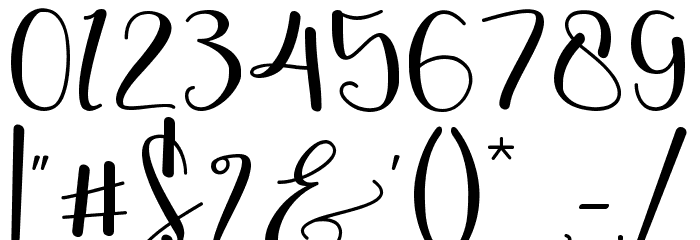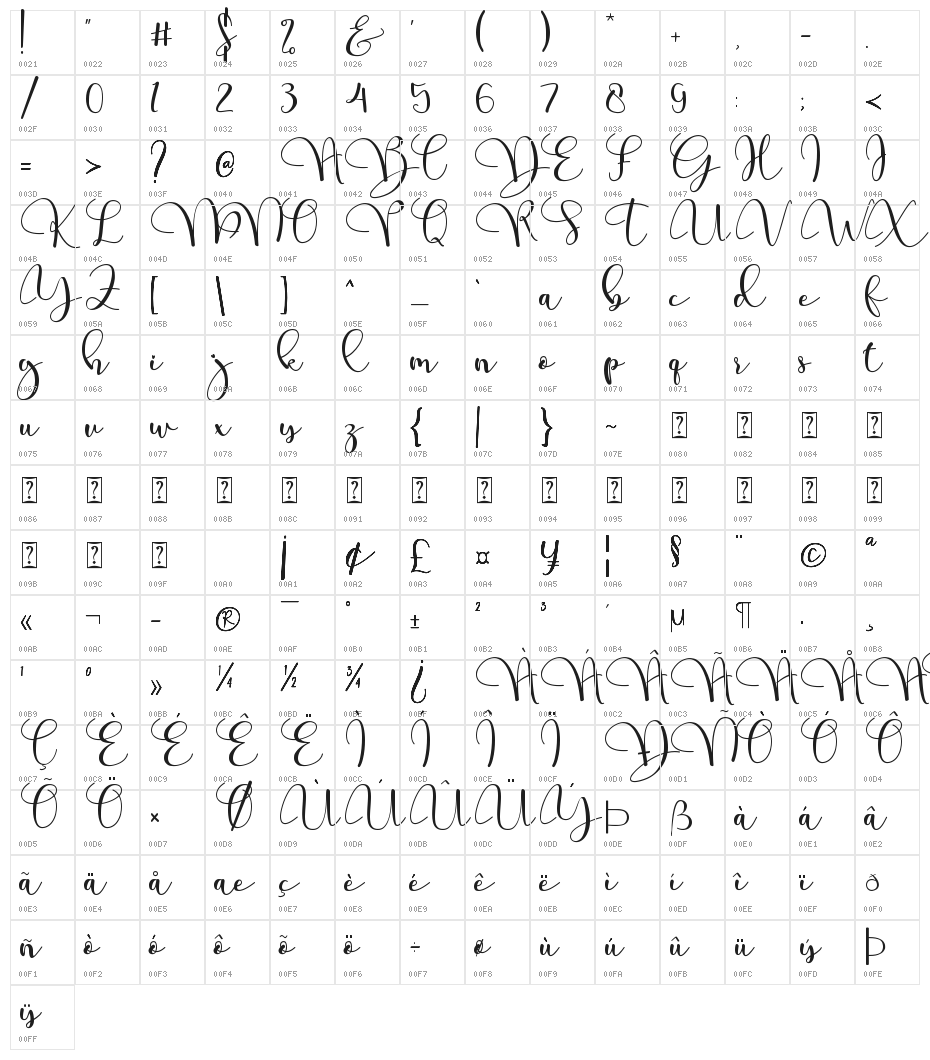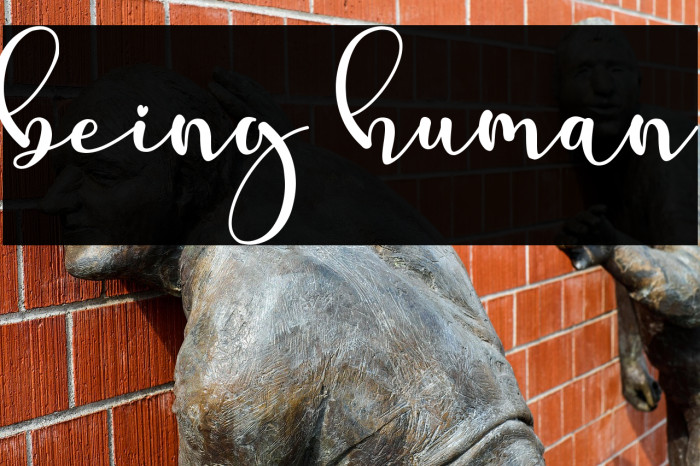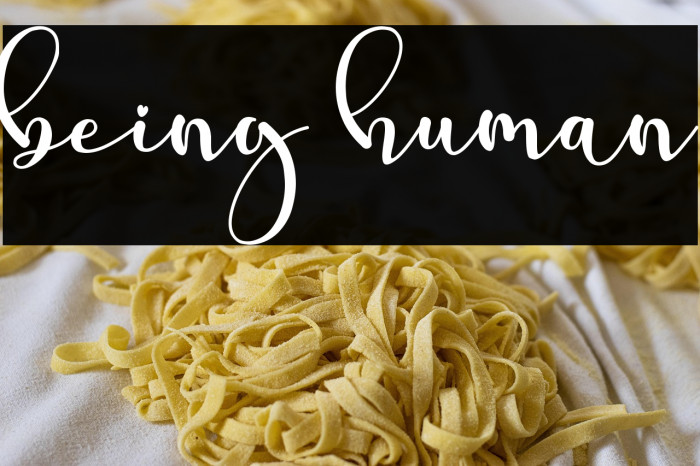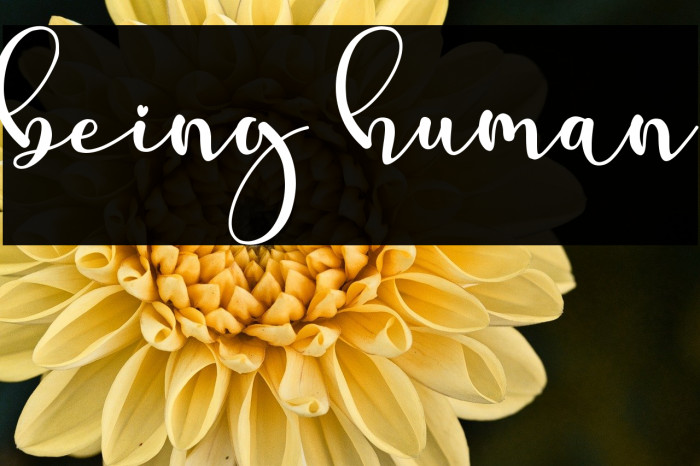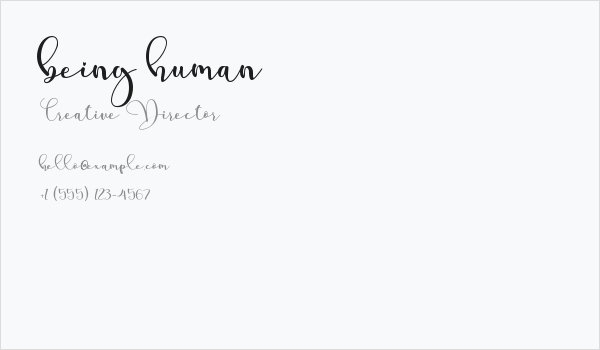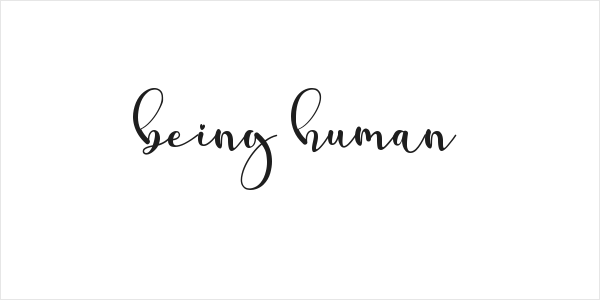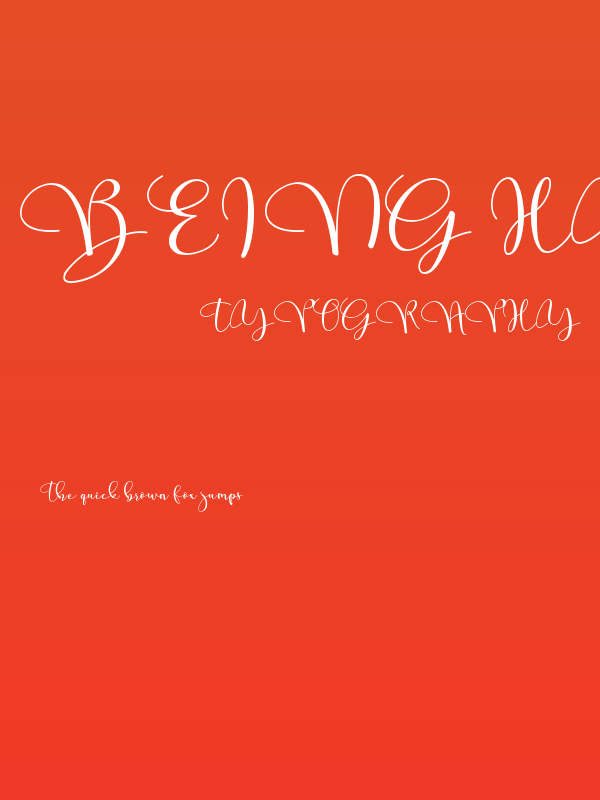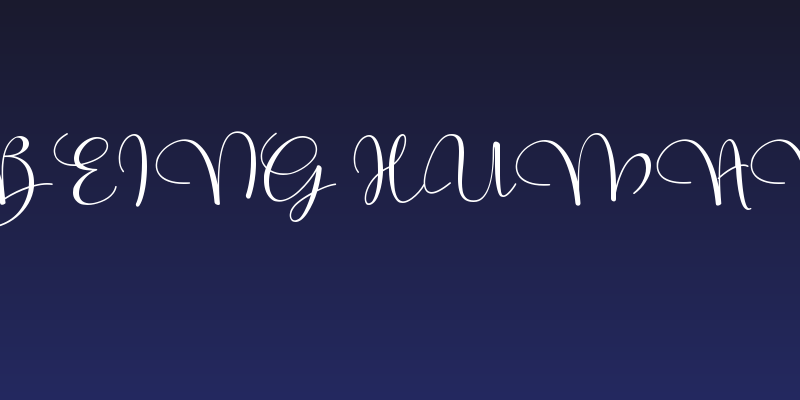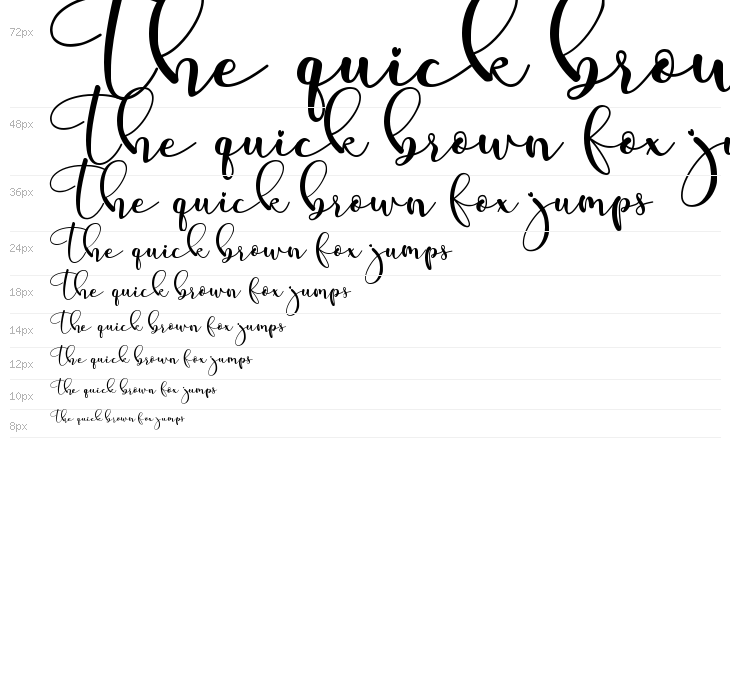
being human Font
being human Description
This font features an elegant and flowing script style, characterized by its smooth, cursive letters that convey a sense of sophistication and grace. The uppercase letters are intricately designed with loops and swirls, creating a decorative appearance that is both stylish and eye-catching. The lowercase letters maintain a consistent flow, with some characters extending below the baseline, adding to the font's dynamic and lively feel. The numerals are bold and clear, ensuring readability while maintaining the overall aesthetic. Special characters are thoughtfully integrated, complementing the script style with their own unique flair. This font is perfect for projects that require a touch of elegance and personality, such as invitations, branding, and artistic designs.
| Use Case | Logos, Invitations, Artistic designs |
| Proposed Projects | Ideal for wedding invitations, branding, greeting cards, and artistic projects. |